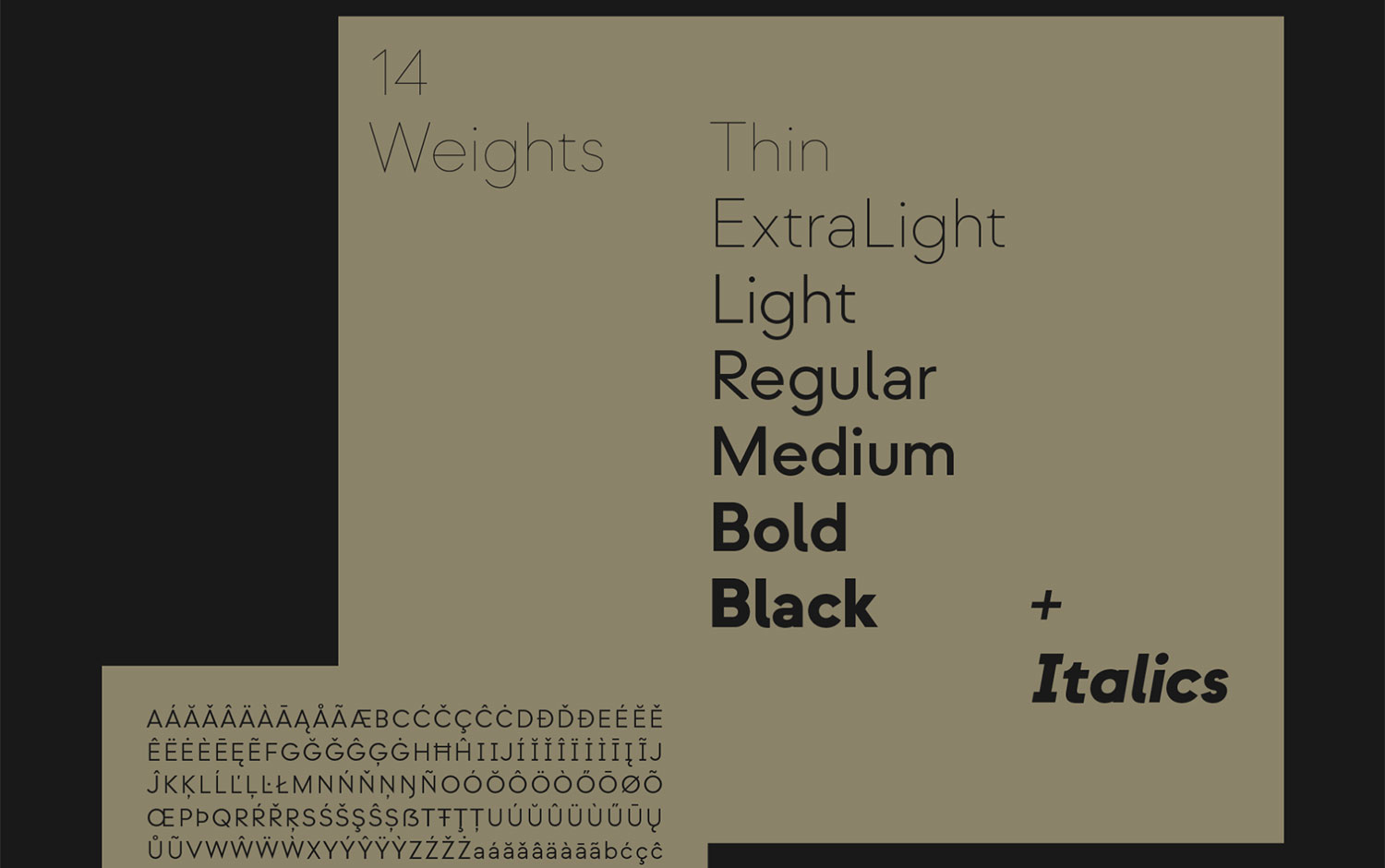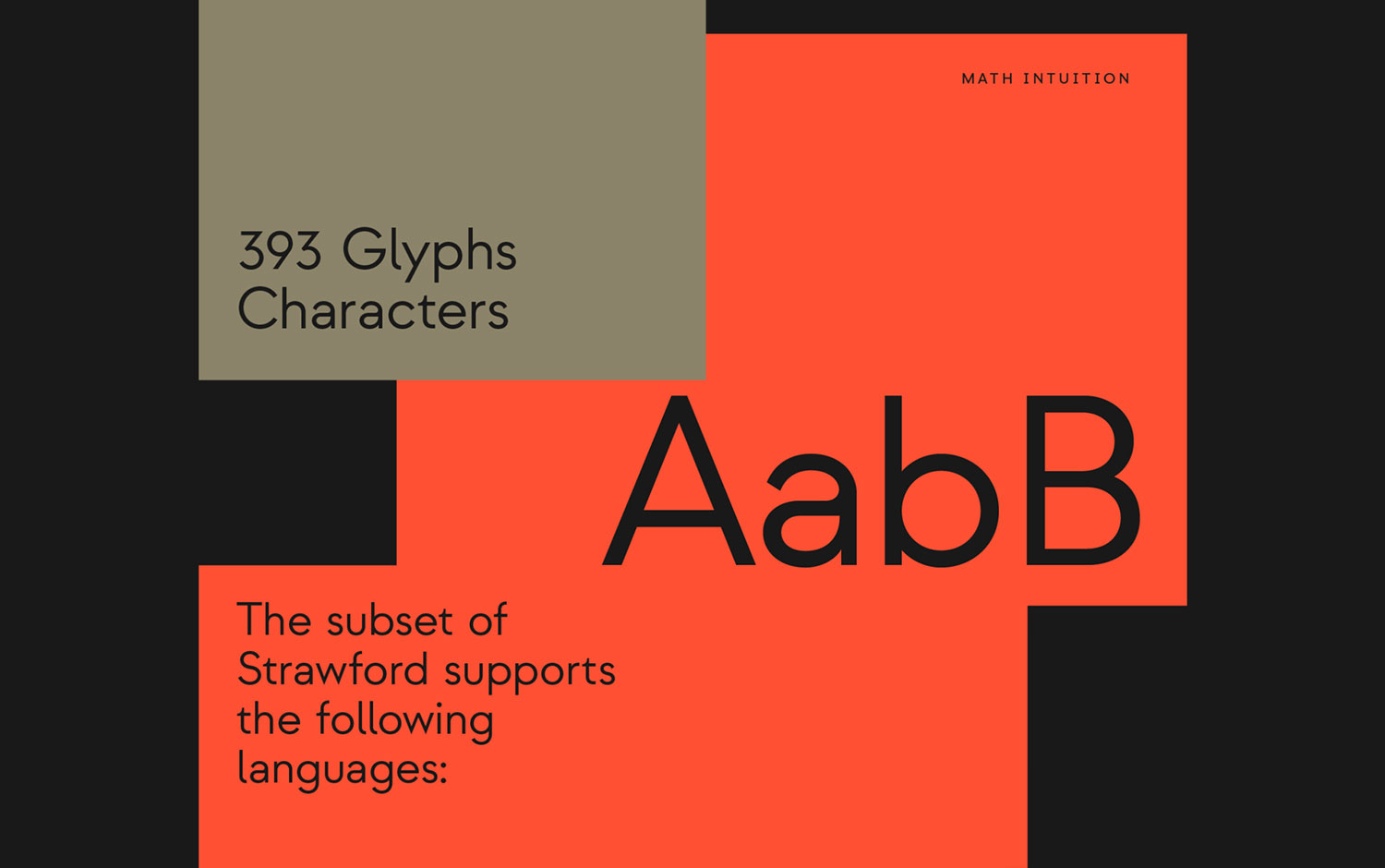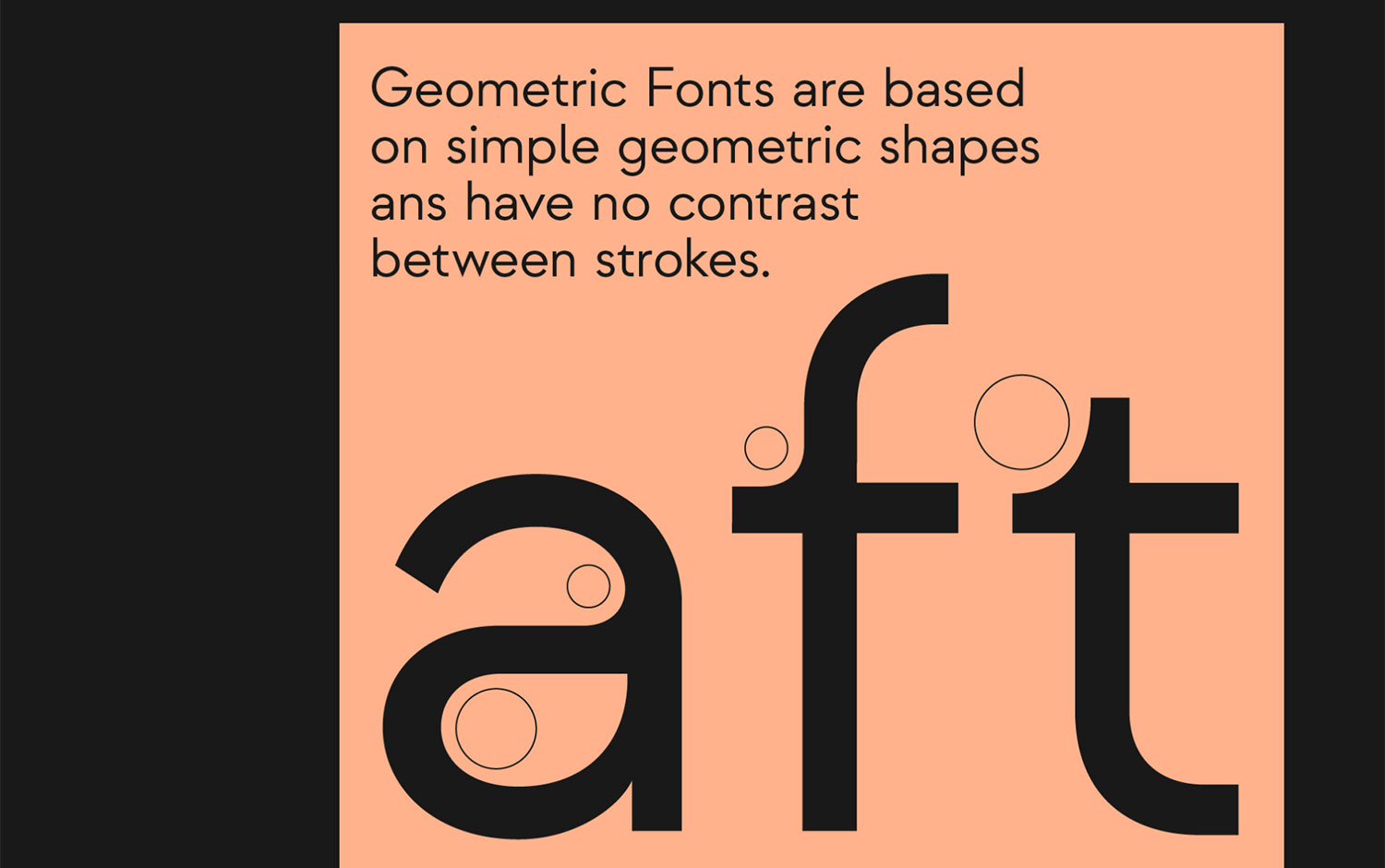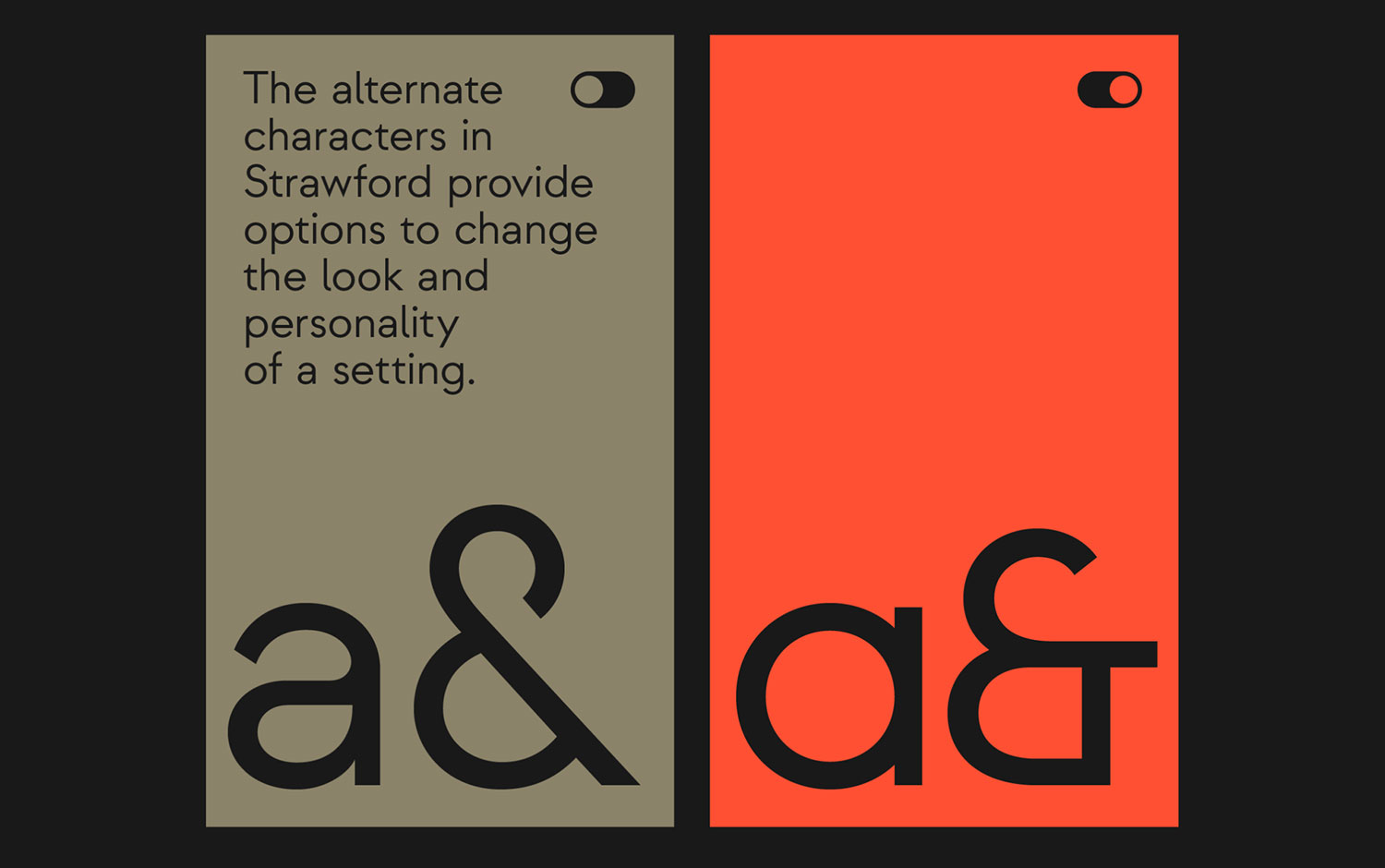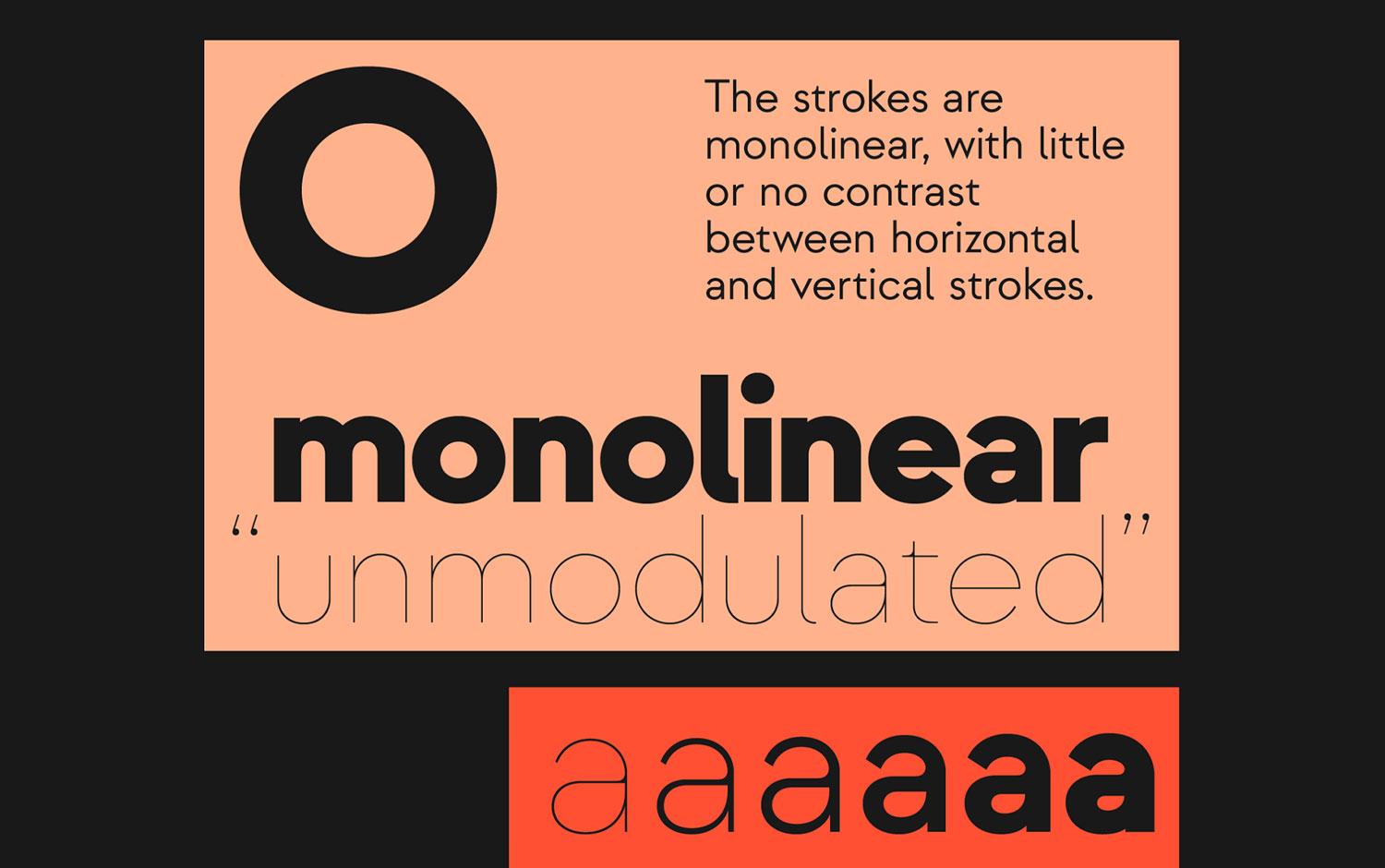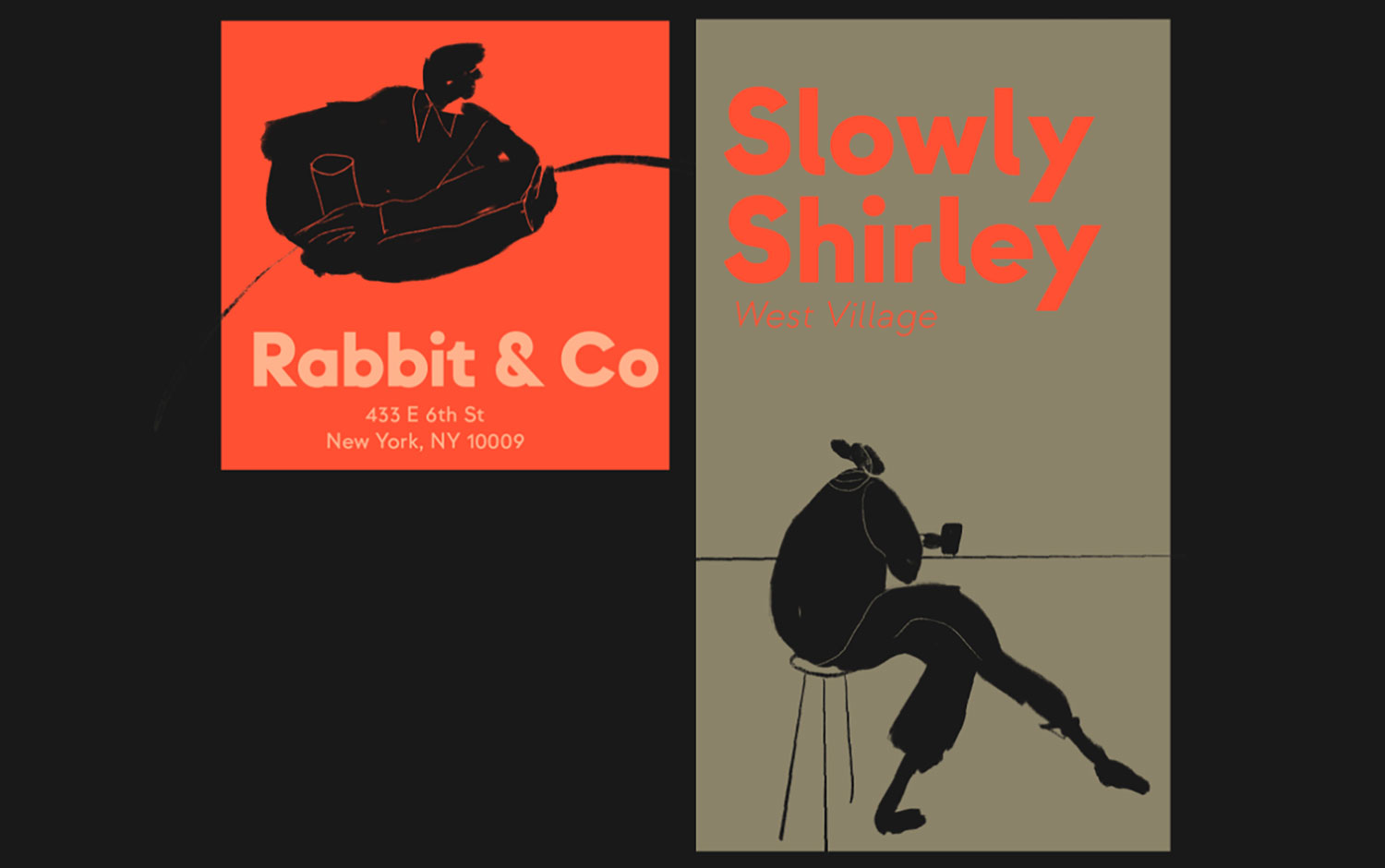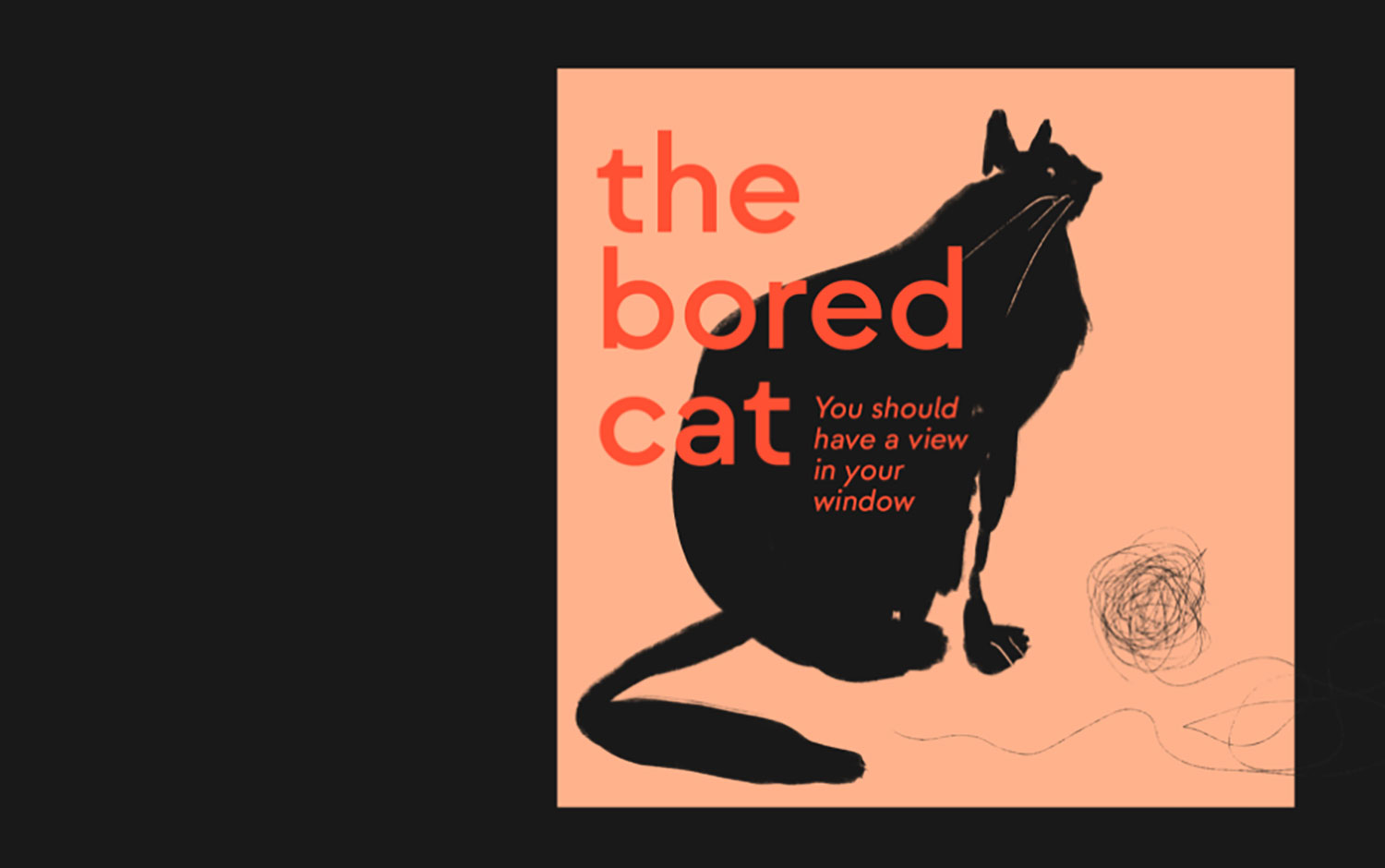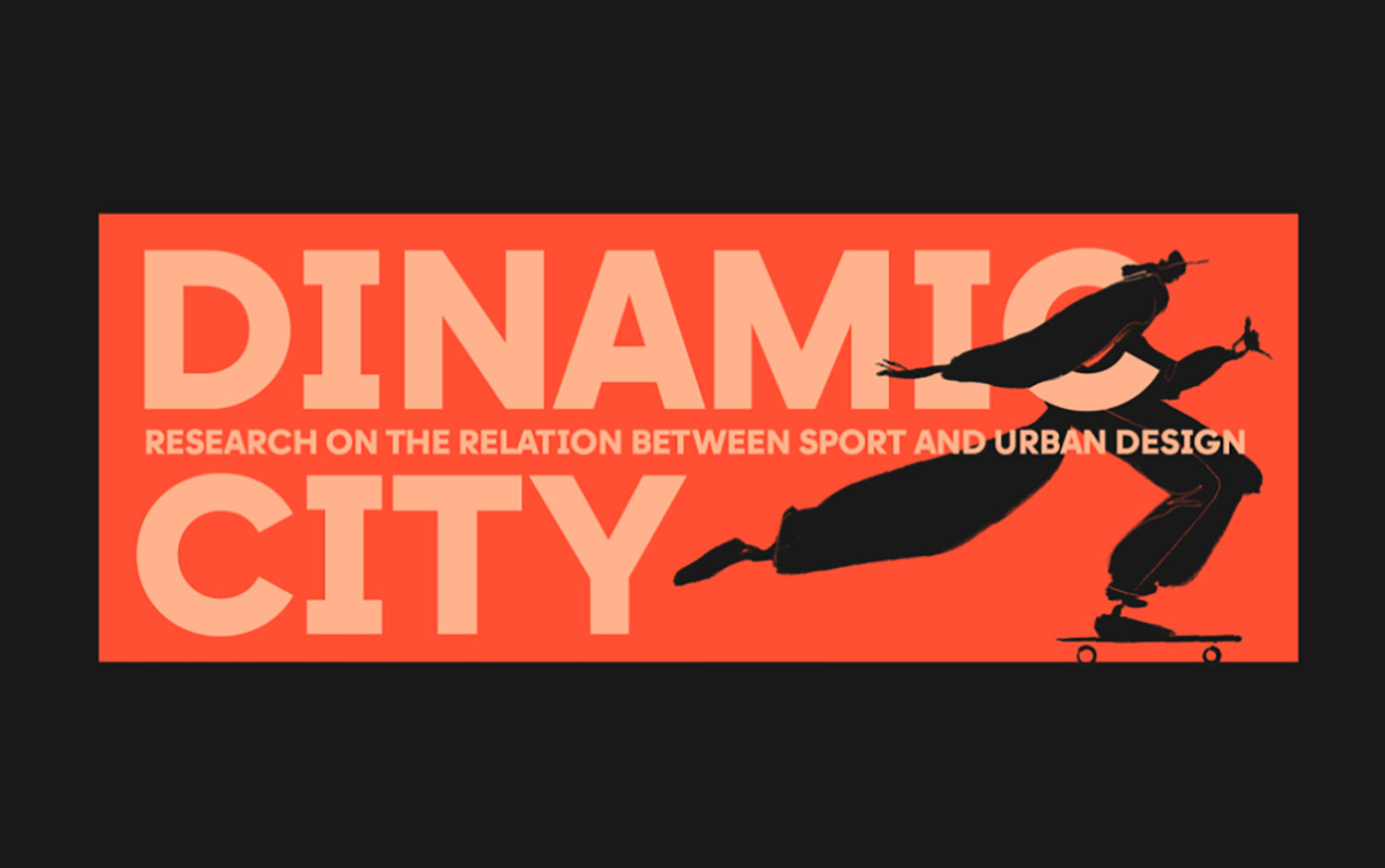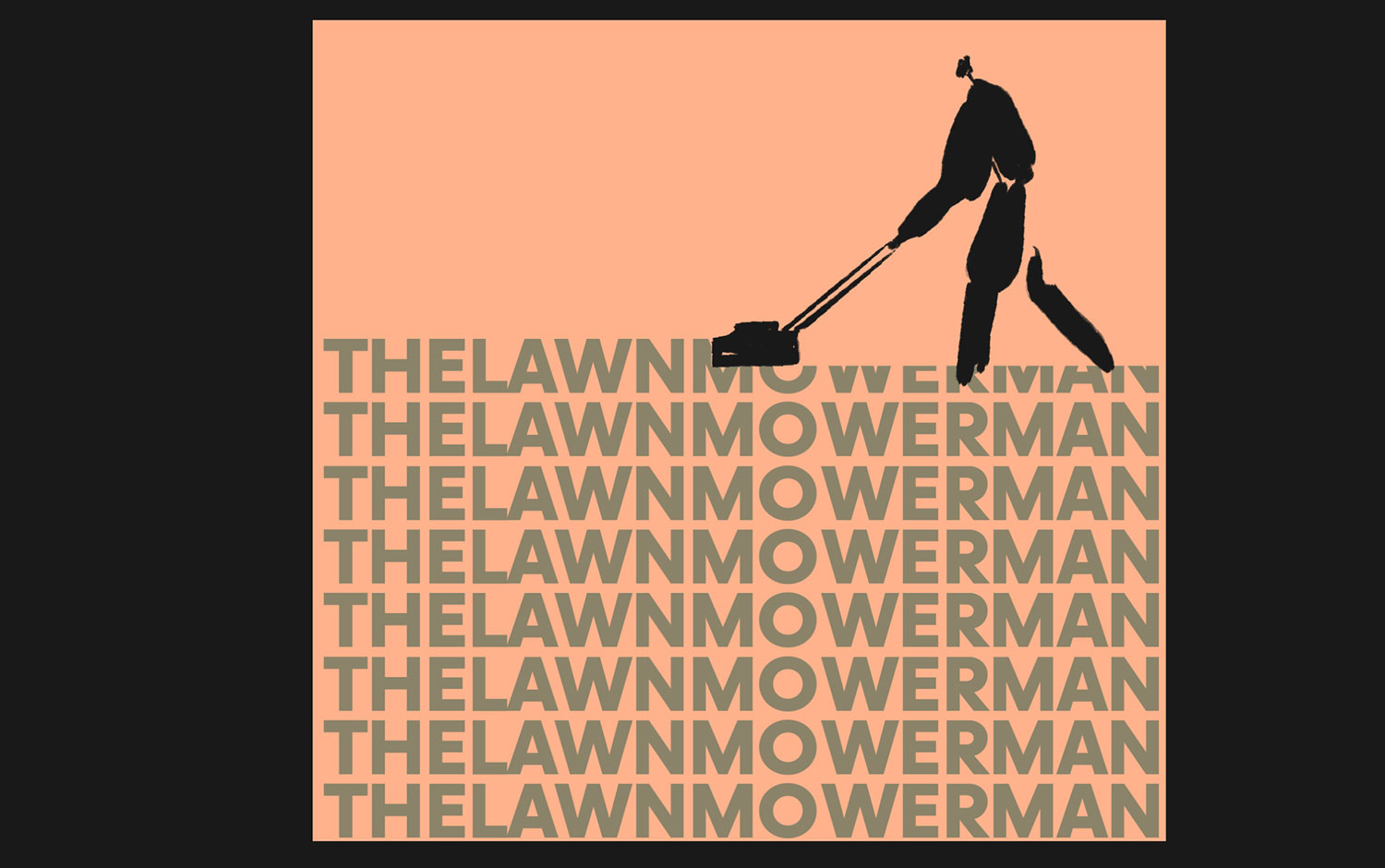
This week's Top 10 series had much to do with typography, so today, we are showcasing a type font project developed by atipo. You know we have a healthy obsession, for now, with character design. And this year, we've seen lots of trends about this topic, as the use of bold curvy fonts and serif's return from the ashes. However, Strawford font can become a more personalized typeface because of its alternate characters. On this occasion, we might get a little bit technical :)
Featuring 393 glyphs characters, Strawford is a low contrast Neo-geometric sans defined by minimalism, geometry, and purity of its form with a balanced width, generous x-height, and short ascenders and descenders, giving it a clean and simple look. Usually, geometric fonts are based on simple geometric shapes and have no difference between strokes. In this case, strokes are monolinear, which means almost no contrast between horizontal and vertical strokes. Strawford Font family comes in 7 weights plus italics. It's a recognizable, legible, and functional typeface as it also provides personal characters of its shapes. Creatives thought of offering a wide range of choices for any design project, especially recommended for UI/UX and digital design. For the presentation, creatives came up with the idea of making a series of illustrations featuring many combinations of the type's weights and its italic version. Plus, humorous winks complement the project.
atipo is an independent graphic design studio and digital foundry, based in gij/u00f3n, founded in 2009 by Ra/u00fal Garc/u00eda del Pomar and Ismael Gonz/u00e1lez. Their philosophy is based on offering honest graphic solutions, enduring and without stridency, where the idea places before the aesthetic.